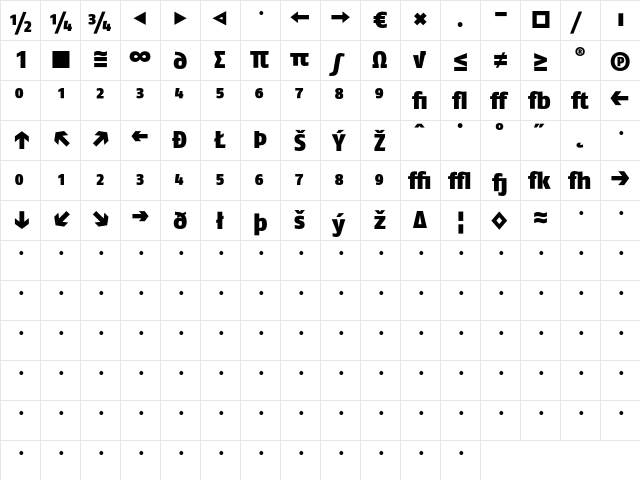
FagoNoBlack Regular Font Preview
FagoNoBlack Regular
Design Context for FagoNoBlack Typeface
FagoNoBlack is a composed and adaptable typeface that performs quietly and consistently across a wide range of design contexts.